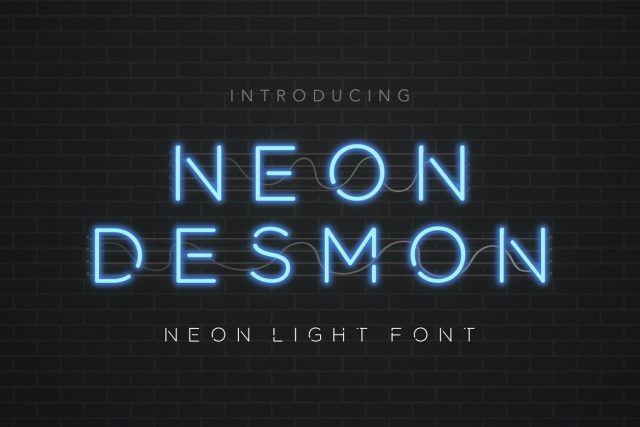
Neon Desmon is a modern Neon Light Font. It’s great for your store, branding, quote and title for magazine, film, or product design.
Main Features:
Uppercase & Lowercase letters
Numbering and Punctuation